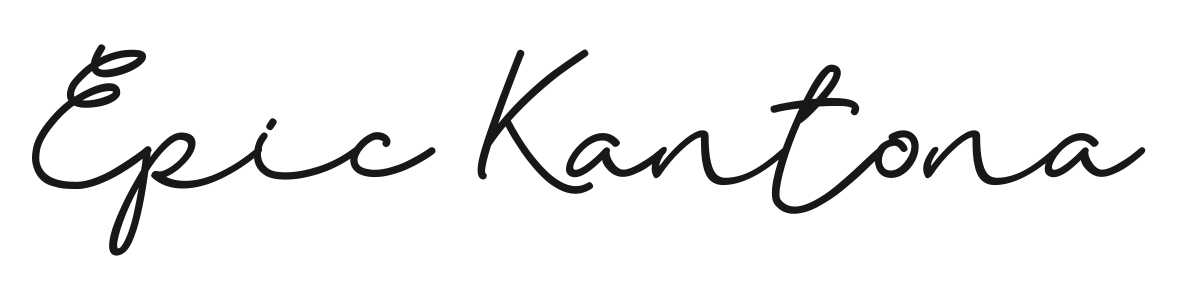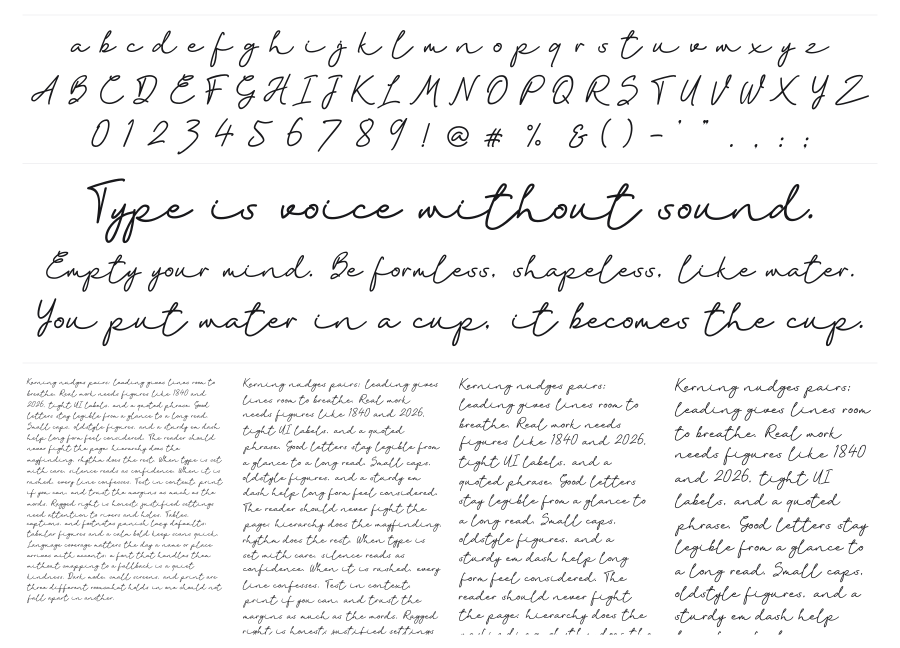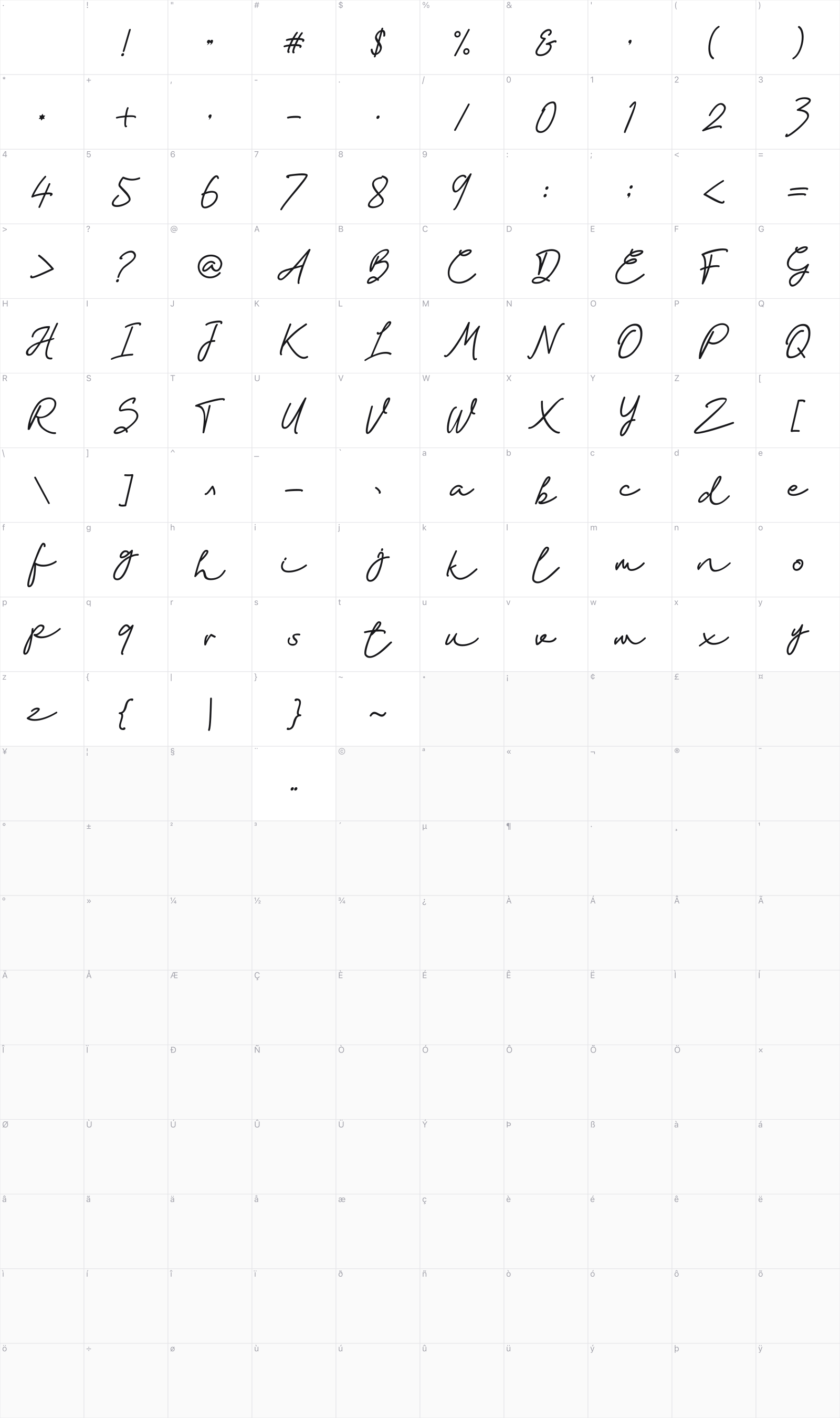
Epic Kantona
Epic Kantona is a casual monoline signature script with a continuous, freely flowing stroke that mimics natural handwriting. The consistent thin weight and long looping connectors give it an effortless, personal quality that reads well at large sizes in logo and branding contexts. It carries the kind of informal elegance that works across wedding stationery, product labels, and lifestyle branding.